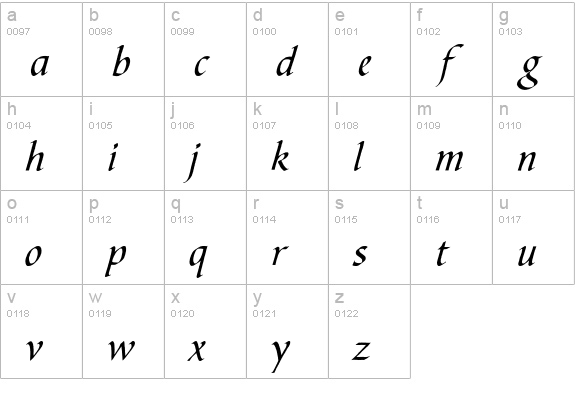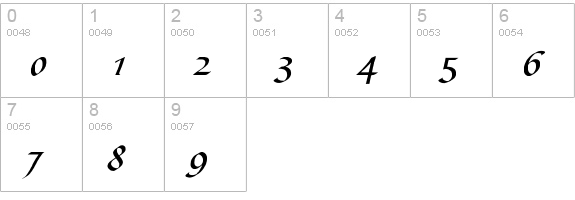
BibleScriptEF-Regular Font Details
BibleScriptEF-Regular is the standard, neutral variant in the BibleScriptEF typeface family \xE2\x80\x94 well suited to general body text, paragraphs, and standard typographic work.
BibleScriptEF-Regular is a classic and elegant font designed for projects that require a touch of traditional sophistication. Its graceful strokes and timeless appeal make it perfect for religious texts, invitations, and other formal applications. The font exudes a sense of reverence and authenticity, making it a popular choice for churches, weddings, and special events. What sets BibleScriptEF-Regular apart is not only its aesthetic beauty but also its versatility. Whether you're creating a modern design or a vintage-inspired piece, this font can adapt to various styles with ease. Its readability and clarity ensure that your message is conveyed effectively, no matter the context. Best of all, BibleScriptEF-Regular is available for free download at FontsMarket.com. This means that you can enhance your projects with this exquisite font without any cost. Take advantage of this opportunity to elevate your designs and make a lasting impression with BibleScriptEF-Regular.